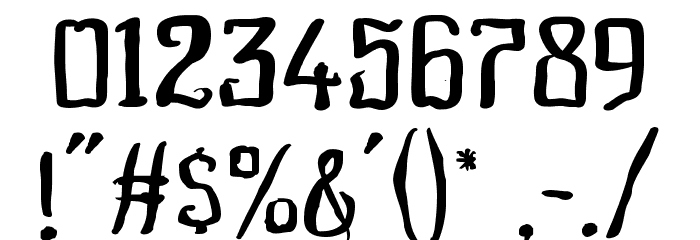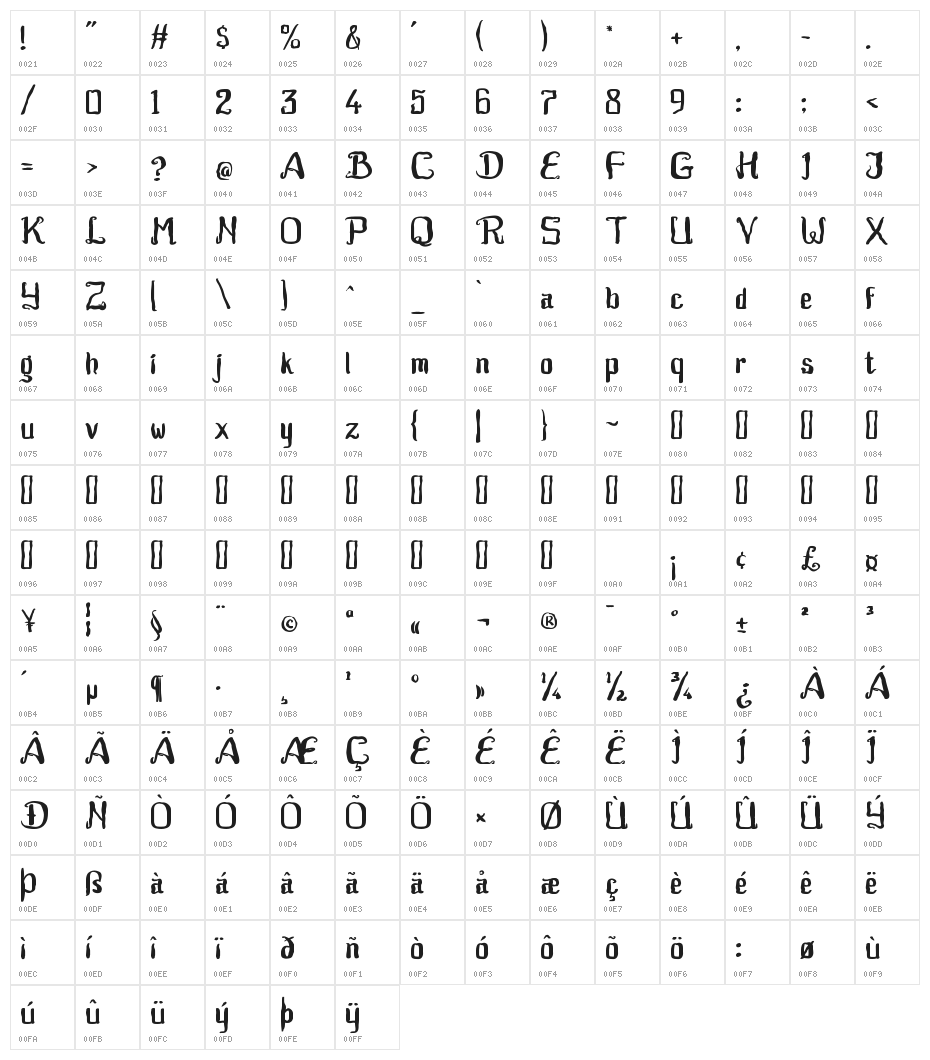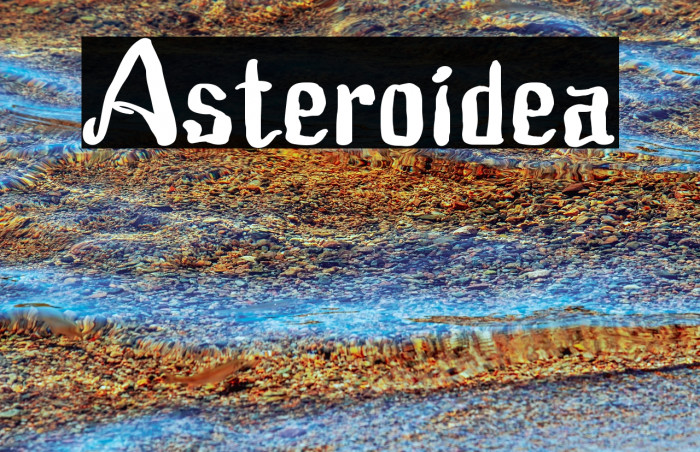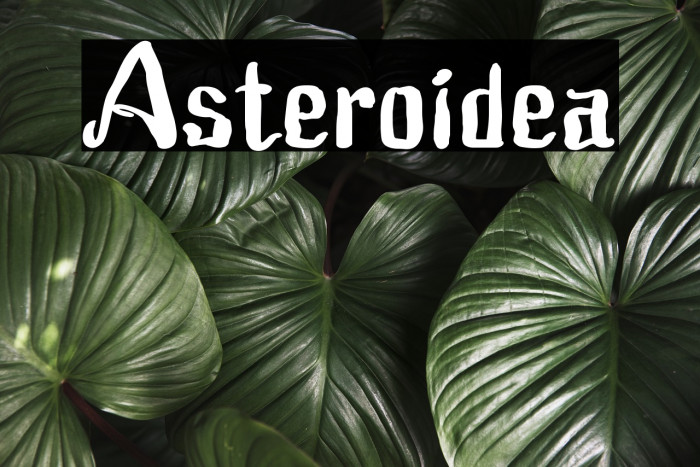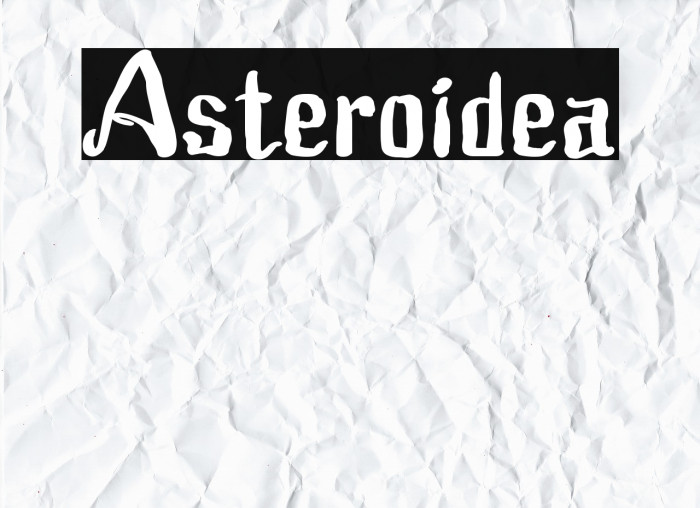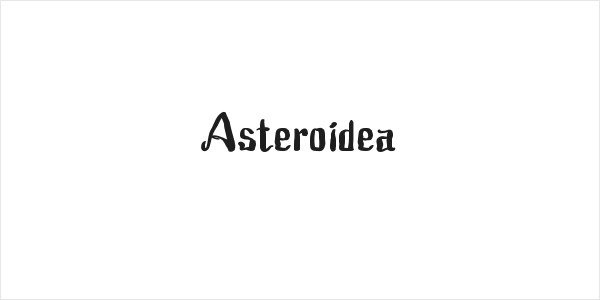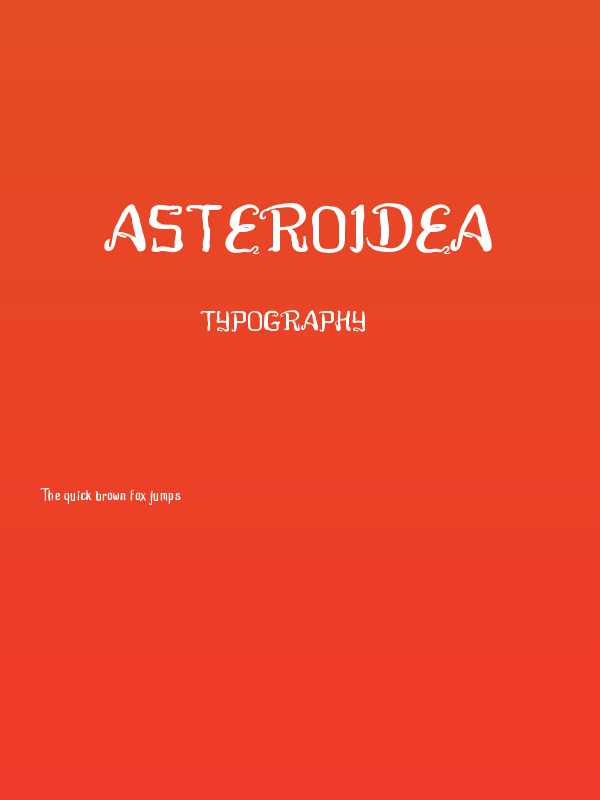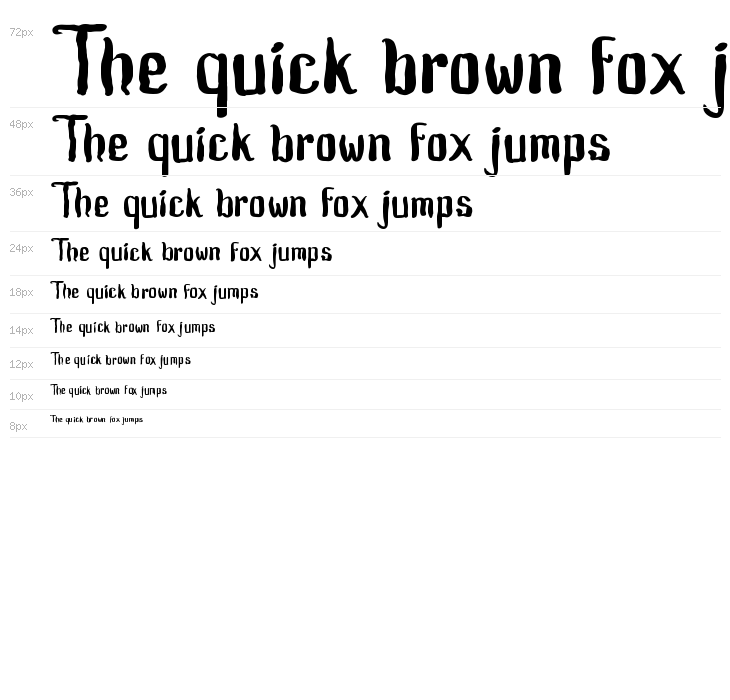
Asteroidea Font
Asteroidea Description
This font exhibits a unique and artistic style, characterized by its bold and slightly irregular strokes that give it a hand-drawn appearance. The uppercase letters are particularly distinctive, with exaggerated curves and flourishes that add a whimsical touch. The lowercase letters maintain a consistent style, with some characters featuring playful tails and loops. The numerals are bold and clear, making them easily readable, while the special characters retain the same artistic flair. Overall, this font combines a sense of creativity with readability, making it suitable for various design projects that require a touch of personality and uniqueness.
| Overall Style | Artistic, Whimsical |
| Proposed Projects | Ideal for creative projects such as posters, invitations, branding, and packaging design where a unique and artistic touch is desired. |